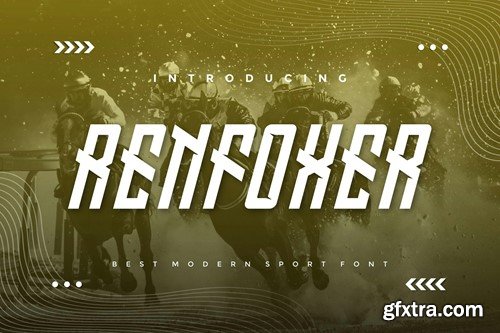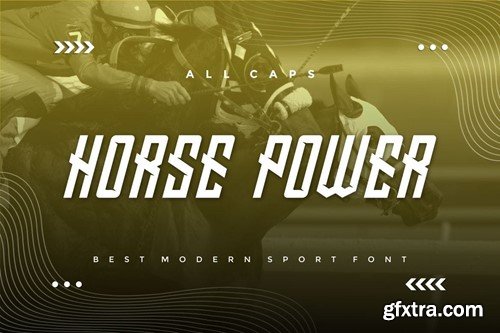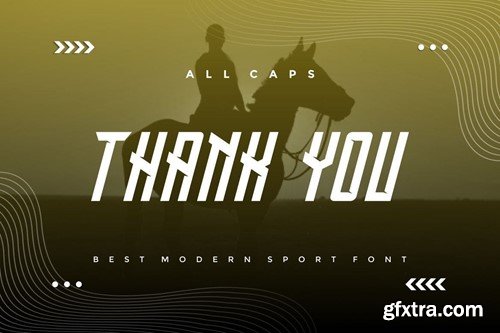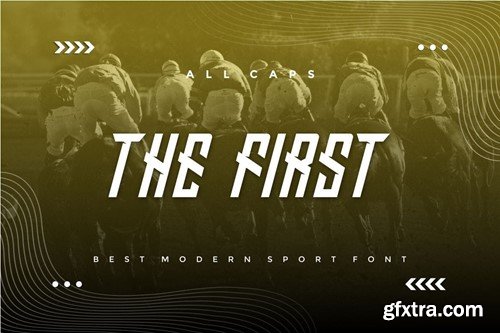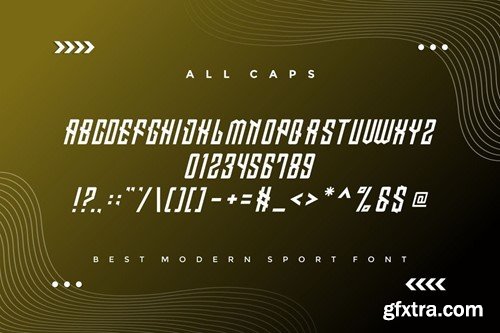
任峰者 - 现代运动字体
Renfoxer - Modern Sport Font
Introducing our new product Renfoxer - Modern Font Renfoxer is a bold, modern display font with playful flair, ideal for attention-grabbing headlines, logos, and diverse design projects. Versatile and readable in both digital and print, Renfoxer adds a dynamic touch to your message. availlable